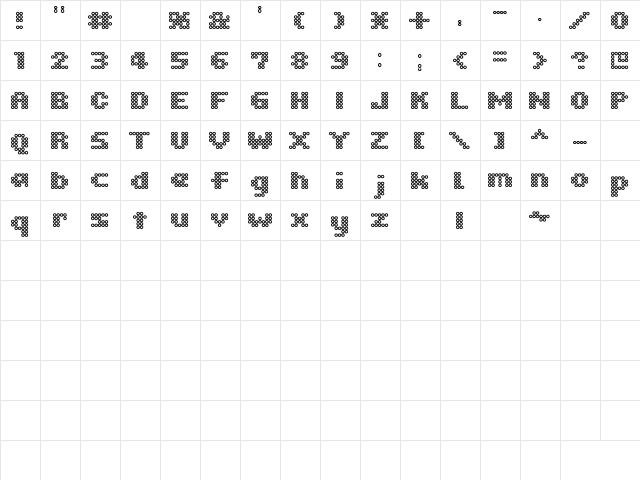
Ironbeadsfont Regular
Design Context for Ironbeadsfont Typeface
Ironbeadsfont is a composed and adaptable typeface that performs quietly and consistently across a wide range of design contexts.